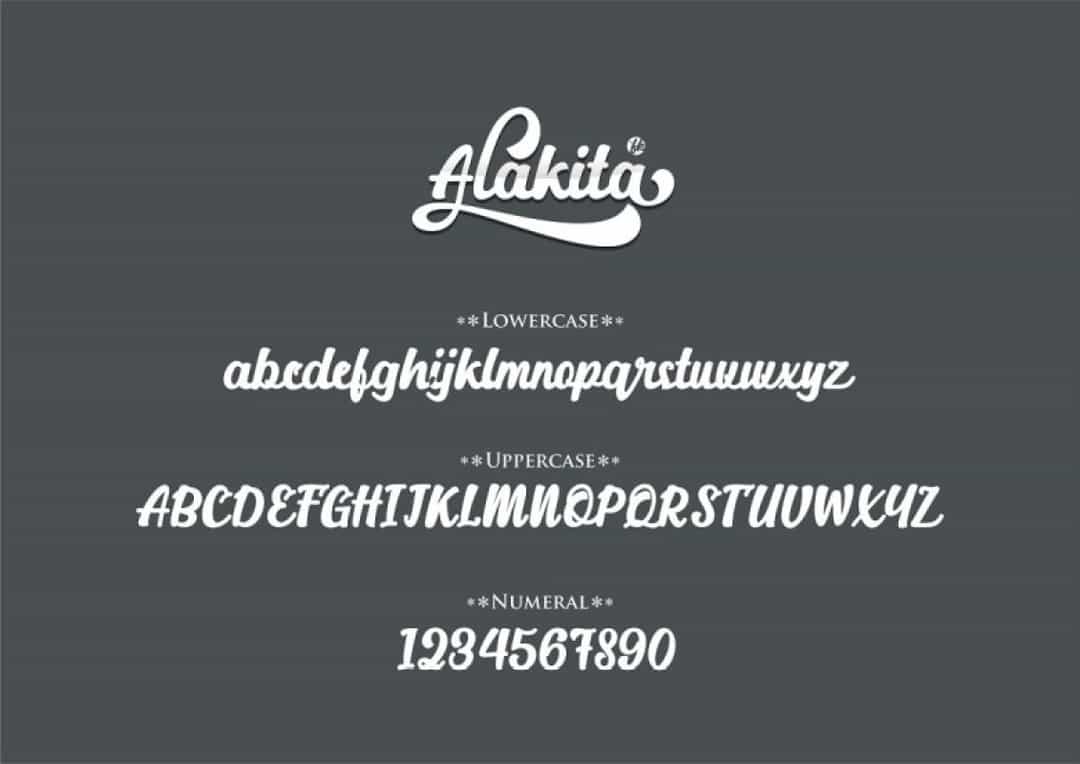
Alakita Font is a new fresh and modern script typeface that inspired with handmade calligraphy, best decoration characters and dancing baseline. It is very suitable for invitation design work such as greeting cards, branding materials, business cards, quote, poster, logo and so on!